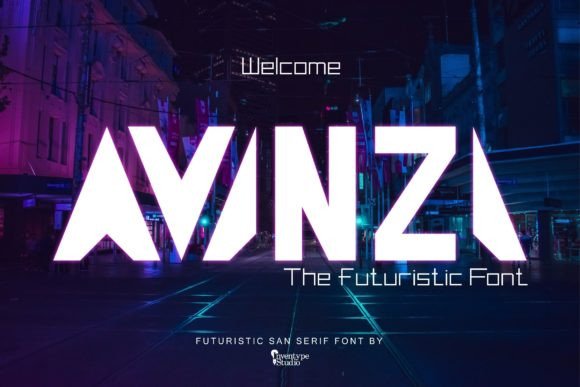
The Ultimate Display Font: Avanza
Honest Review: What I Love (and a Few Quirks)
Avanza is a game-changer for any design project that needs a bold and daring typography. Here’s what I love about it:
- ✨ **Unique and futuristic design**: Avanza has a one-of-a-kind look that’s sure to turn heads.
- ✅ **Highly legible**: Despite its bold and edgy design, Avanza is surprisingly easy to read, even at smaller sizes.
- 💥 **Perfect for display text**: Avanza is designed specifically for display text, making it perfect for headlines, titles, and other attention-grabbing elements.
Of course, no font is perfect, and Avanza does have a few quirks:
- 🤔 **Limited use for body text**: While Avanza is amazing for display text, it’s not the best choice for body text or longer paragraphs.
- ⚠️ **Some glyphs may not work well at small sizes**: While Avanza is generally legible, some of the more intricate glyphs may not work well at very small sizes.
The Story Behind Avanza
Avanza was designed by a team of creatives who wanted to push the boundaries of modern typography. Inspired by futuristic architecture and cutting-edge technology, they created a font that’s both bold and beautiful. While the designers behind Avanza are shrouded in mystery, their creation has quickly become a favorite among designers and crafters.
| What is Avanza best used for? | Avanza is best used for display text, such as headlines, titles, and other attention-grabbing elements. |
| Is Avanza easy to read? | Yes, Avanza is surprisingly easy to read, even at smaller sizes. |
| Does Avanza support OpenType features? | Yes, Avanza supports OpenType features like glyphs and stylistic alternates. |